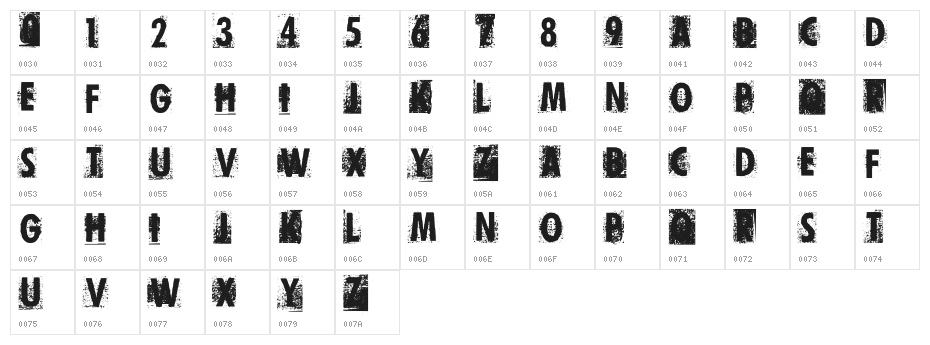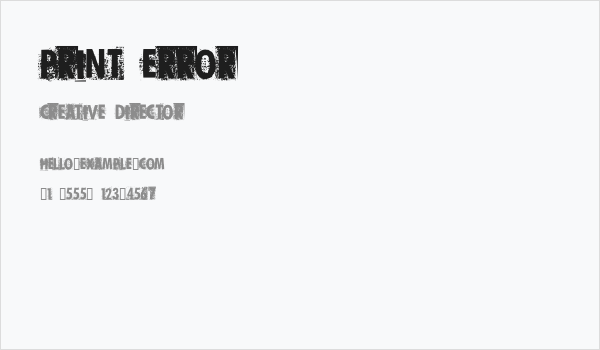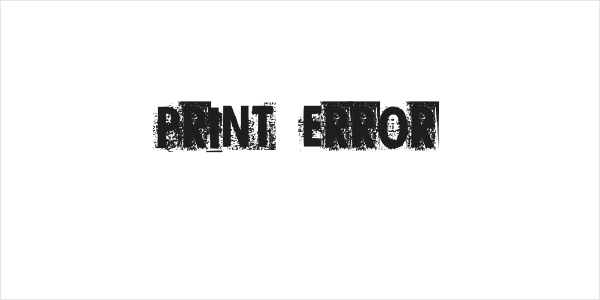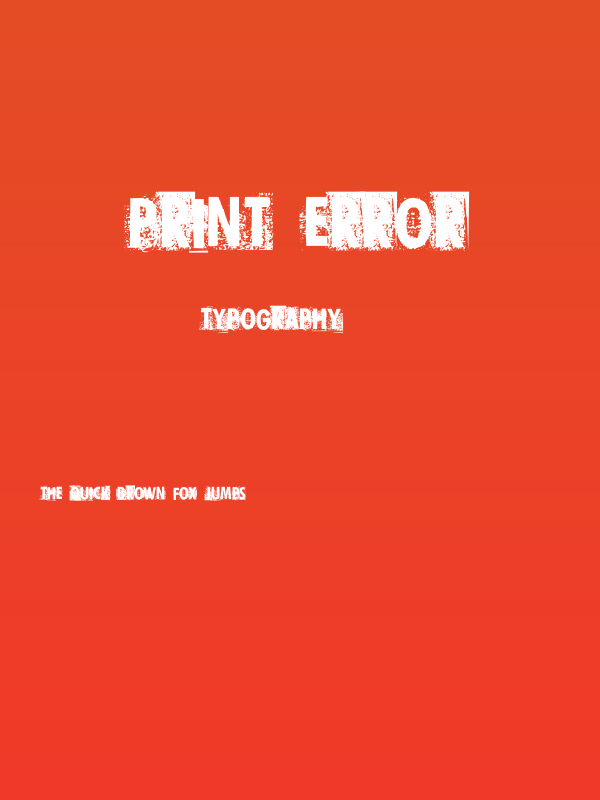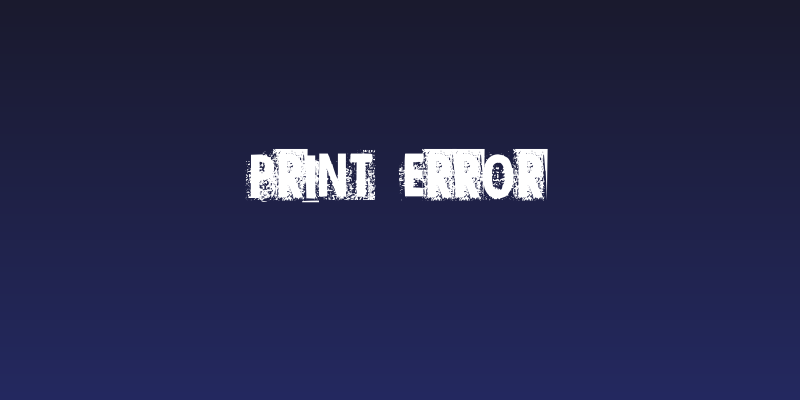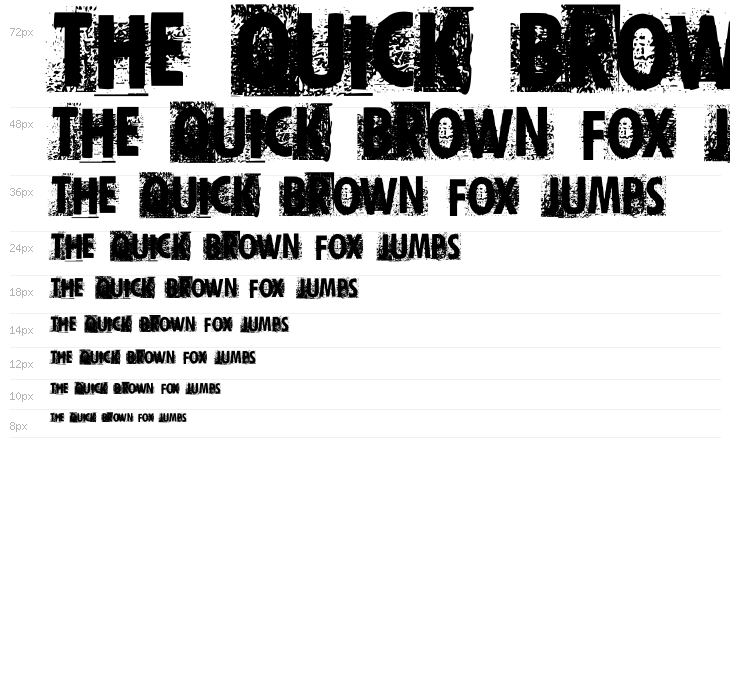
Print Error Font
Print Error Description
This font features a distressed, grunge style that gives the appearance of being worn or weathered. The characters are bold and have a rough texture, resembling a print error or ink smudge effect. This style is particularly striking and can add a rugged, edgy feel to any design. The uppercase and lowercase letters are consistent in their distressed look, providing a cohesive appearance across all characters. The numerals and special characters follow the same aesthetic, ensuring uniformity throughout the font set. This font is ideal for projects that require a bold statement or an urban, gritty vibe.
| Overall Style | Grunge, Urban, Edgy |
| Proposed Projects | Perfect for album covers, posters, streetwear branding, or any design needing an edgy, urban touch. |